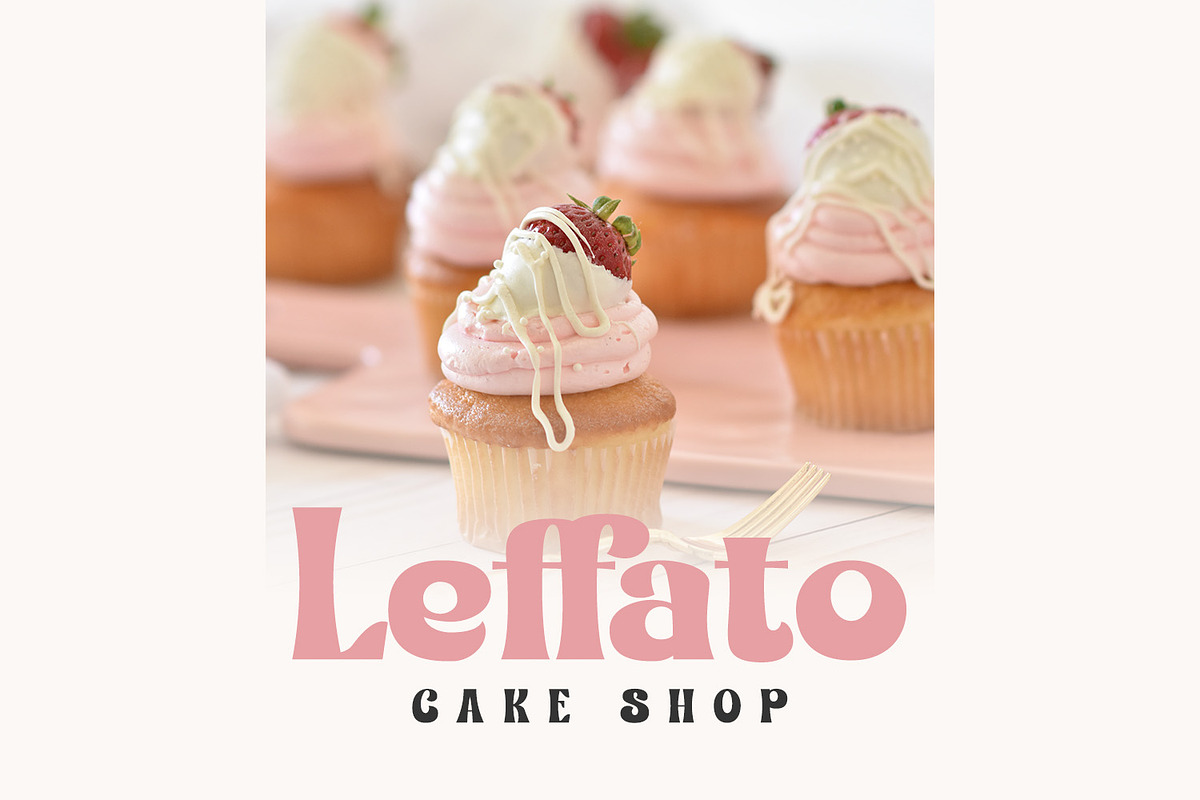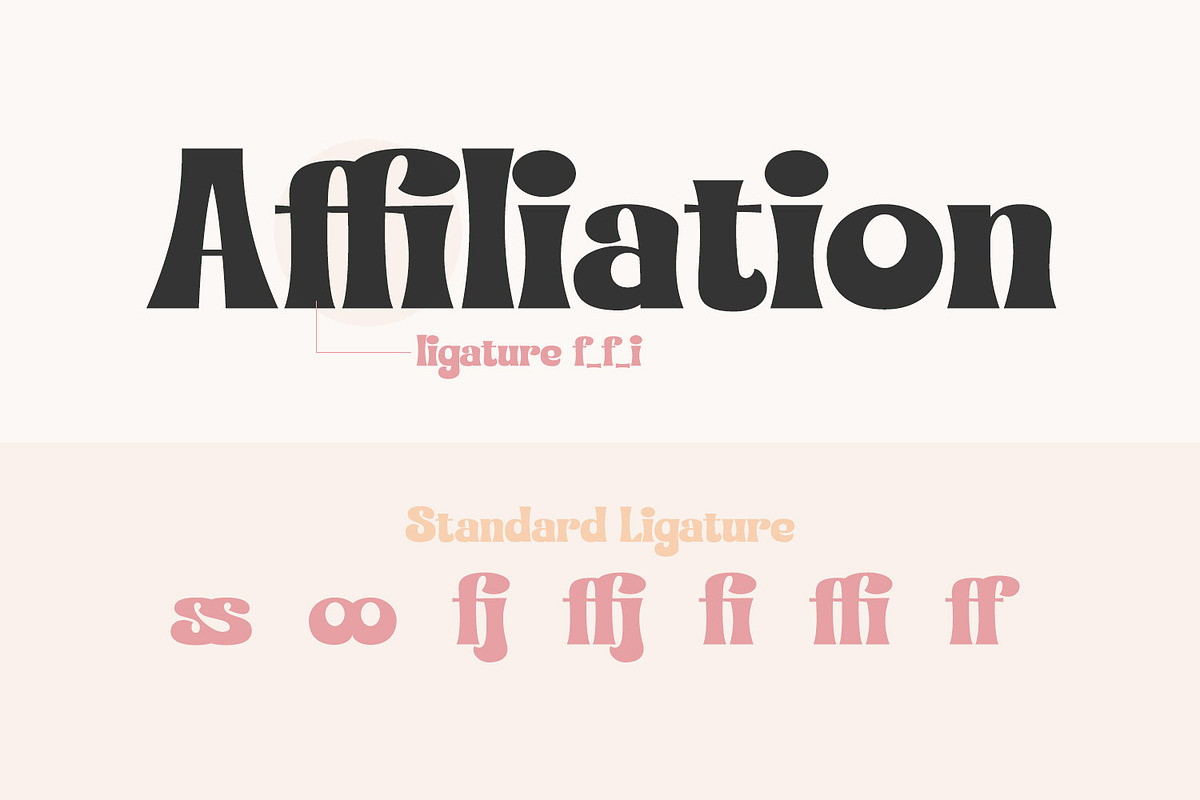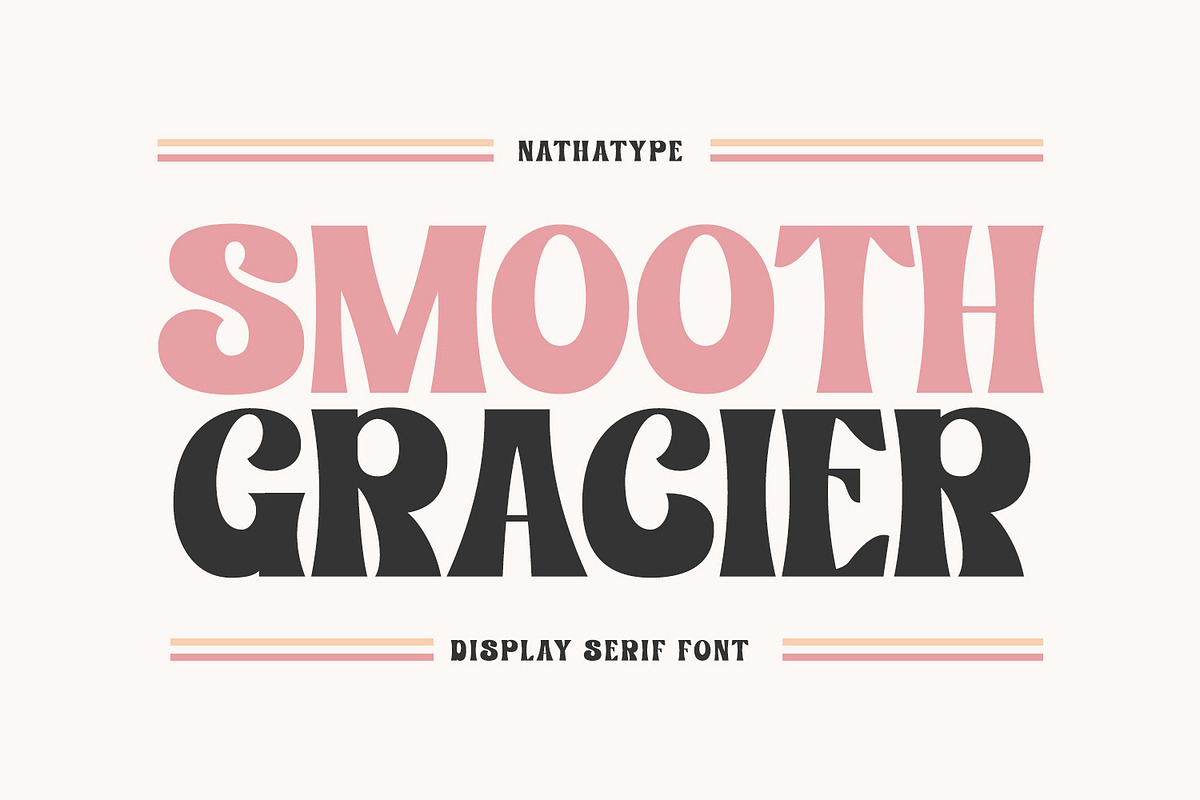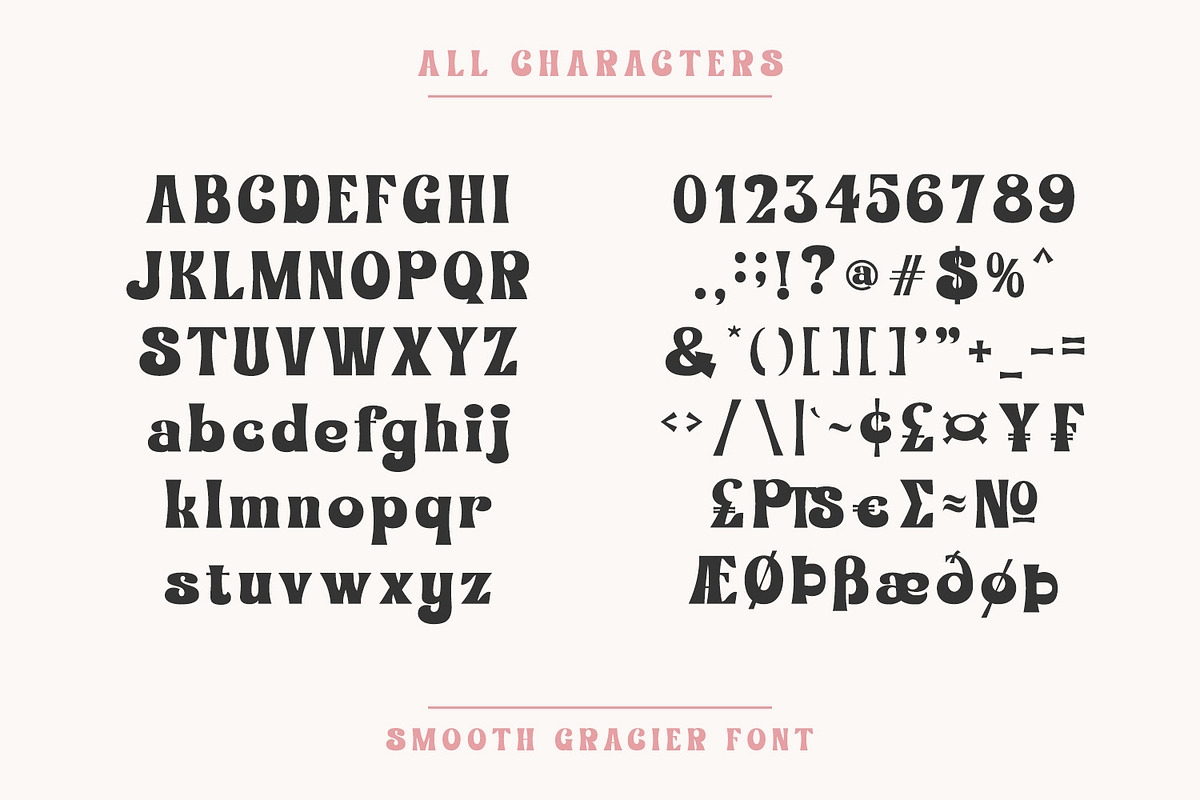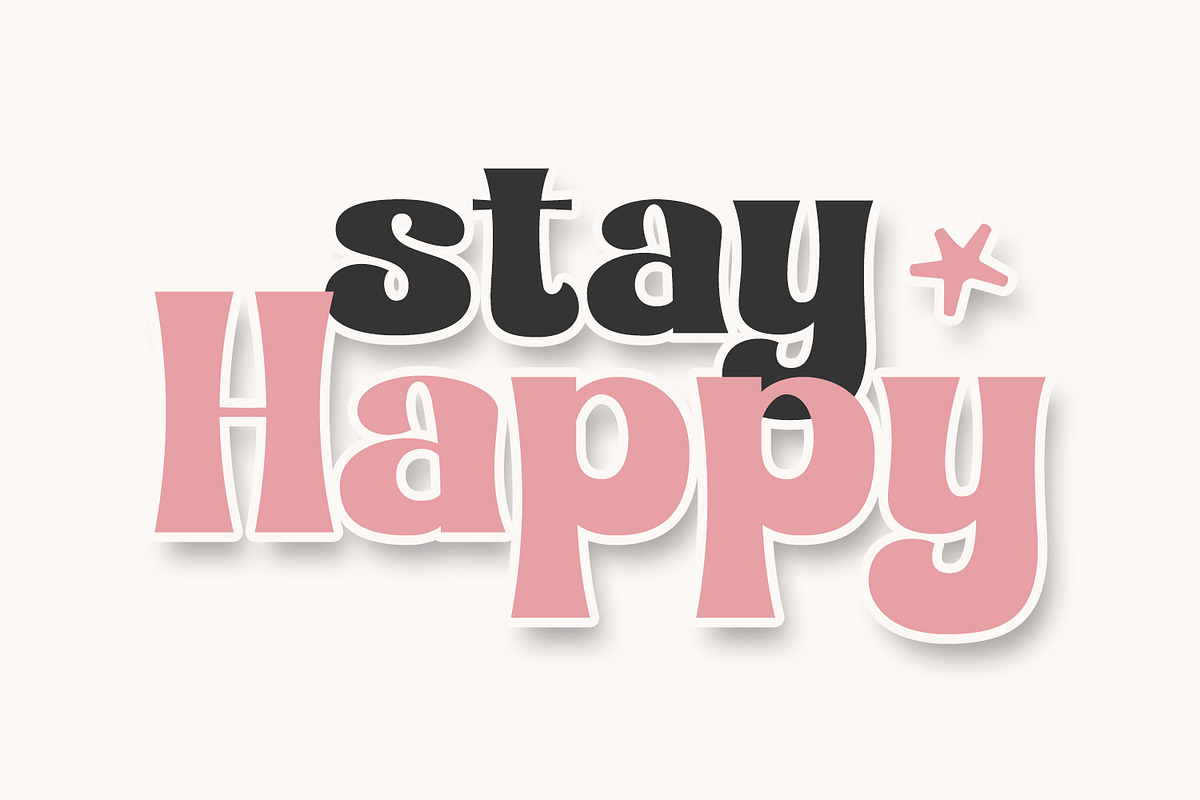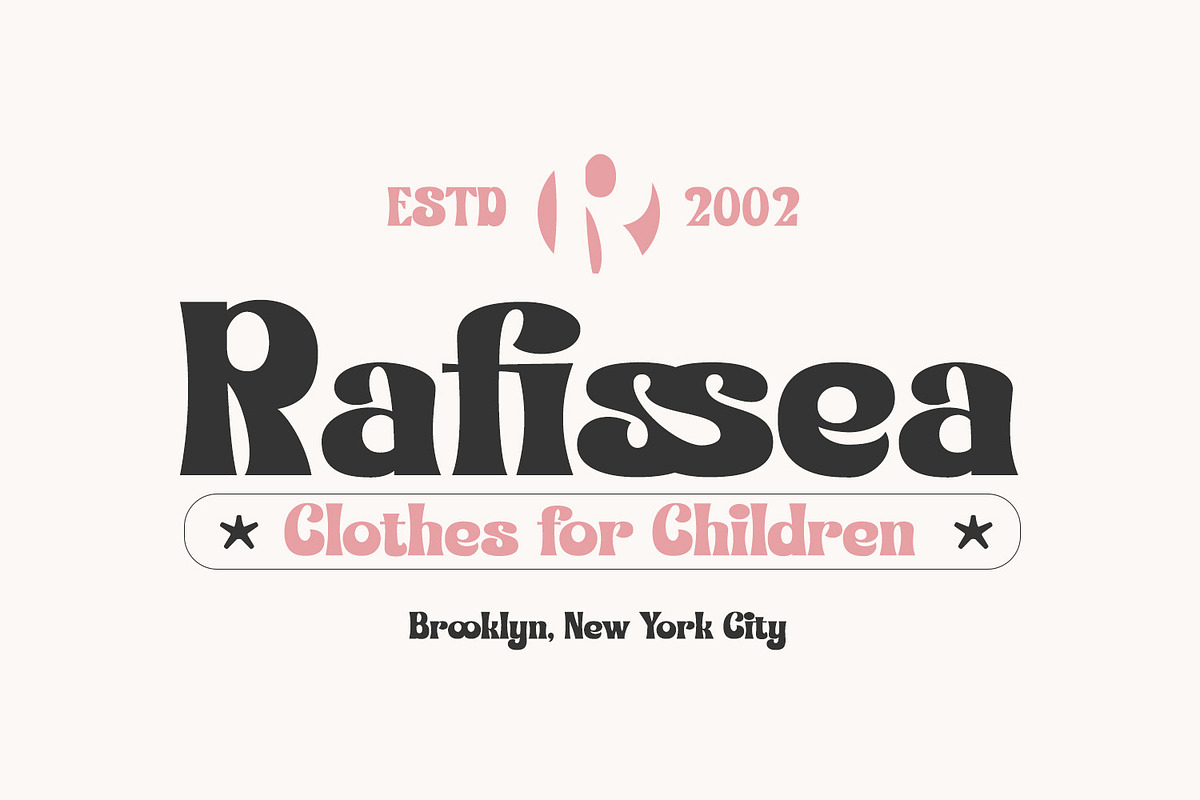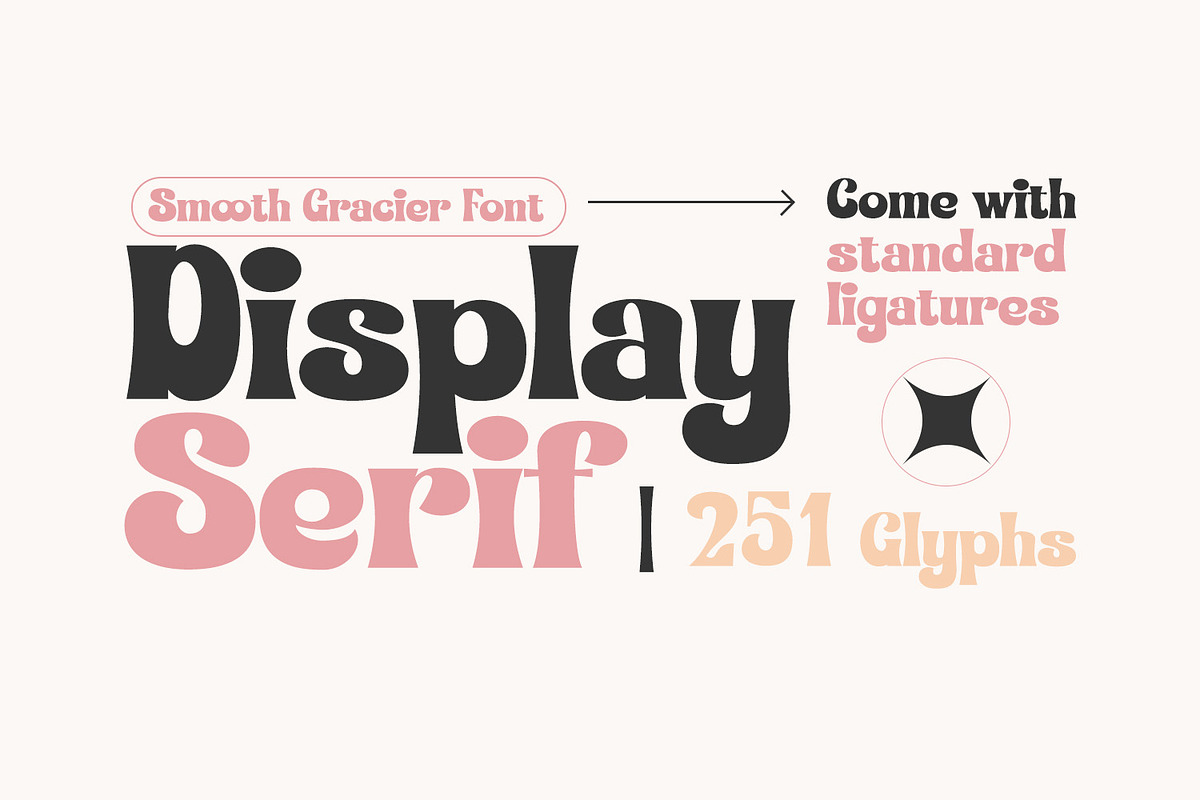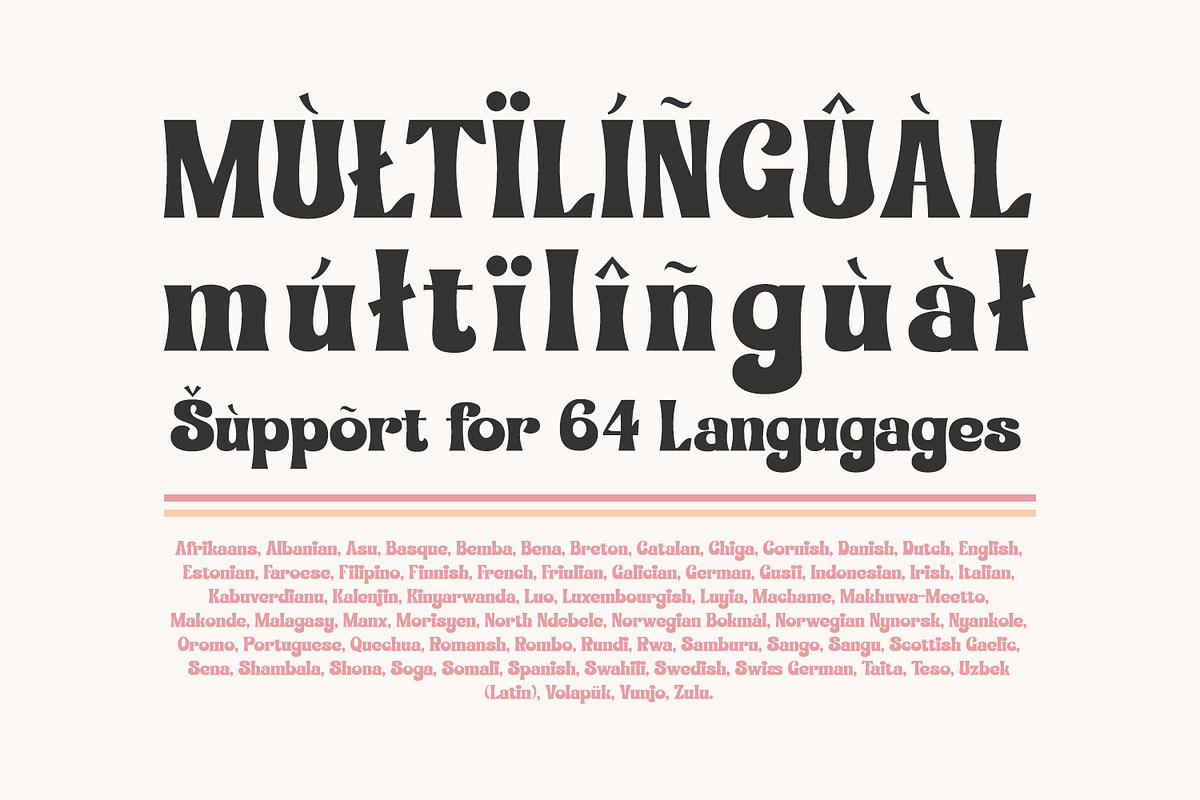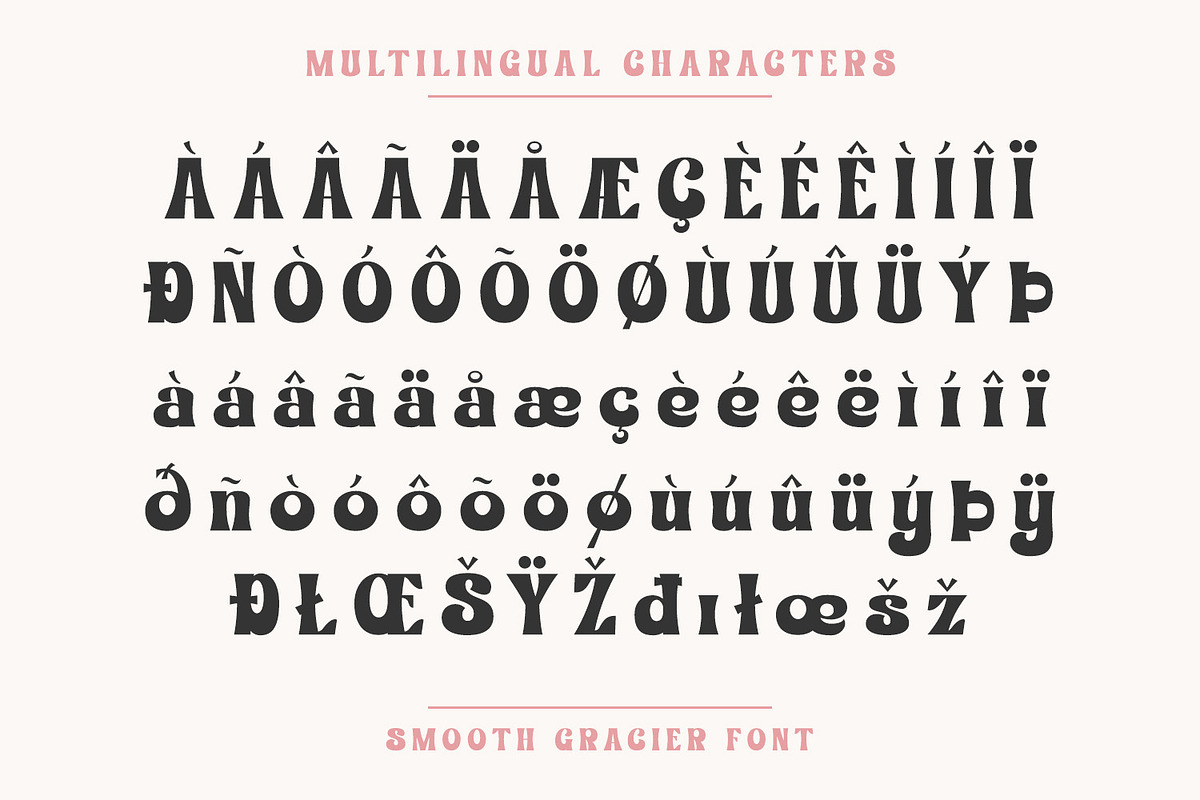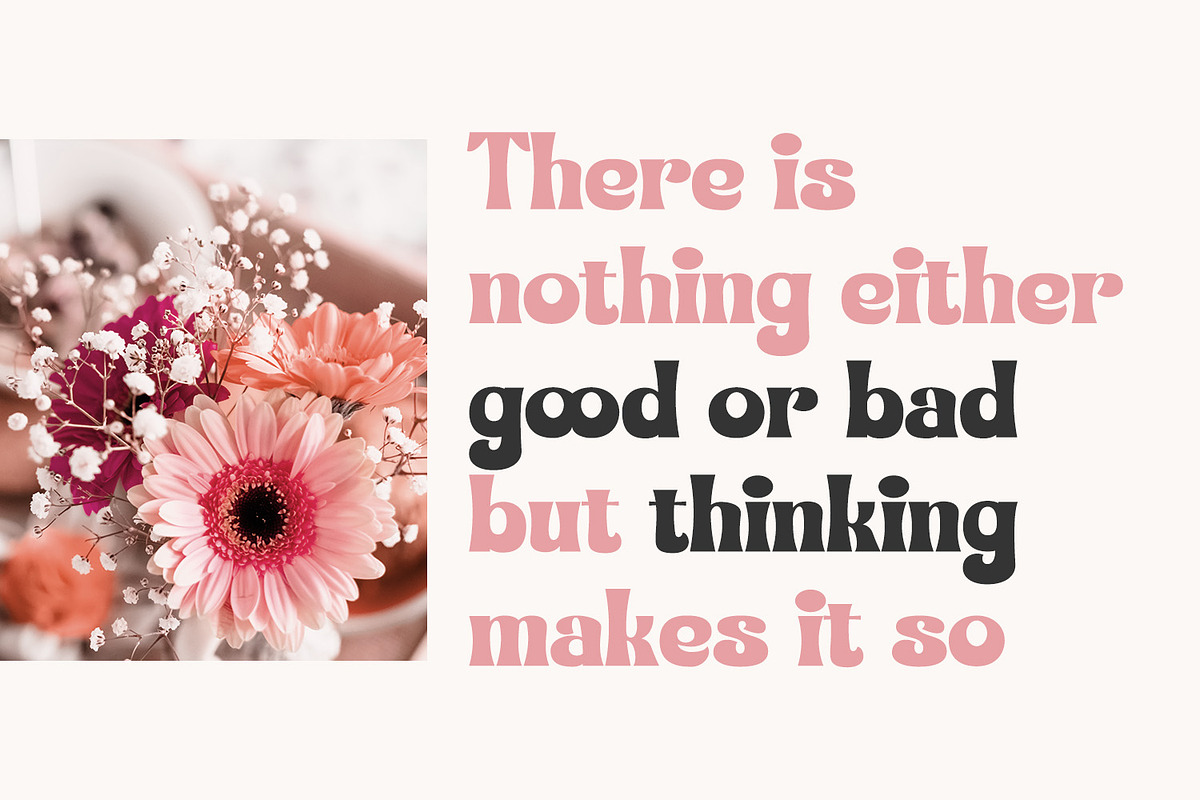
Smooth Gracier
Smooth Gracier is a stylish display serif font to express modern, friendly, fun nuances on your designs. The unique geometry details and the contrast sketch lines help to make the font visually interesting. It is suitable to apply for bigger sized-texts due to its dramatic, bold styles. Enjoy the lovely features available in this font.
- Stylistic Sets
Smooth Gracier fits for various design projects, such as posters, banners, logos, magazine covers, quotes, headings, printed products, invitations, merchandise, social media, etc. Find out more ways to use this font by taking a look at the font preview.